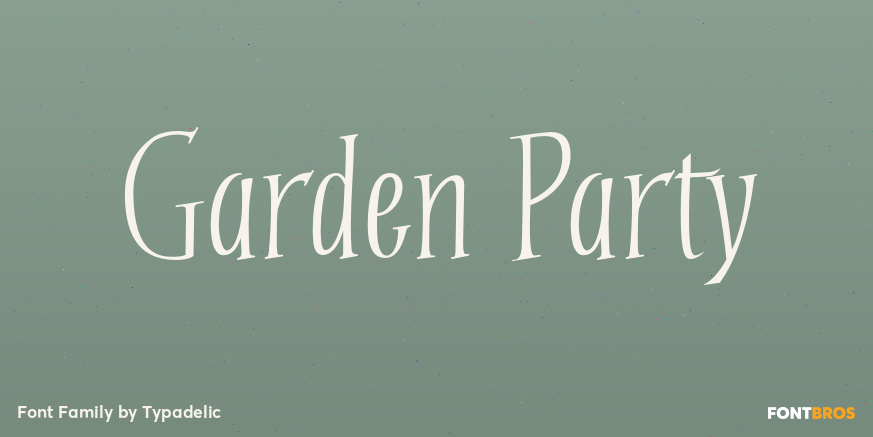
HomeFont BrosHandwrittenGarden Party HandwrittenSerifScripts: Formal Garden Party FacebookXPinterestWhatsApp 1 of 1 About Garden Party has a calligraphic feel without appearing formal. The ample x-height, short ascenders and descenders make this a distinctive typeface.  DOWNLOAD ON FONT BROSThis font is sold and delivered by Font Bros. Font Canyon may earn a commission if you buy through this link. People also explored Beautify Script Font Cindy Julia Font Togetha Font Freik Font Grade Monogram Font Adore Font Simple Home Font Sunset Font Gilose Font 225 0 TagsGarden Party Font Previous articleBuskerNext articleBeautiful Moonlight LEAVE A REPLY Cancel reply Comment: Please enter your comment! Name:* Please enter your name here Email:* You have entered an incorrect email address! Please enter your email address here Website: Save my name, email, and website in this browser for the next time I comment. Personal Use Free Ammanda Personal Use Free Read more about this font Lightning Script Personal Use Free Read more about this font Sweet Someday Personal Use Free Read more about this font True Love Personal Use Free Read more about this font BLOG 5 Fonts That Will Dominate Design Trends in 2026 5 Fonts for 2026 That Will Dominate Design Trends Typography plays a critical role in visual communication, and as we look ahead to 2026, it’s... Where to Buy American Fonts Online in 2024 How to Cut Any Font on Cricut: Convert a Font to SVG (Free) Free vs Paid Fonts: Why Investing in Premium Fonts Is Worth It